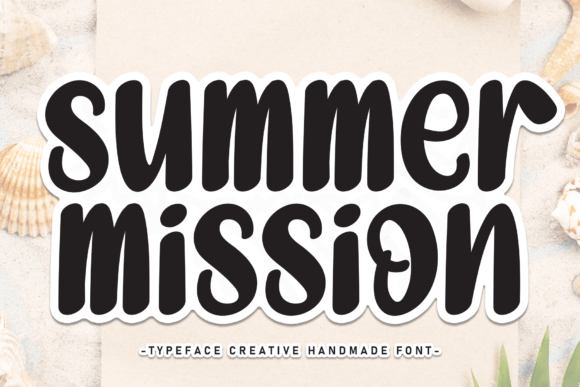
Introducing Summer Mission Font - A Script Embellishment to Awaken Your Design Dreams
Journey into the world of Summer Mission Font, a captivating handwritten display font that embodies sweetness and friendliness. This script font, crafted by the talented William Jhordy, is more than just a collection of letters; it's an artistic expression, a creative companion ready to transform your designs into captivating masterpieces.
Summer Mission Font: A Glimpse into Its Enchanting Charm
Envision a font that dances effortlessly across your screen, its characters flowing with a natural, handwritten grace. Summer Mission Font is precisely that - a symphony of curves and strokes that evoke a sense of warmth and playfulness. Its carefully crafted lines mimic the beauty of hand-lettering, adding an organic, personal touch to your digital creations.
The Allure of Summer Mission Font: Why It's the Chosen One
In a world saturated with digital fonts, Summer Mission Font stands out as a beacon of uniqueness. Its script style is reminiscent of days gone by, a nostalgic nod to the charm of handwritten letters. This font isn't just a tool; it's an extension of your creativity, a medium through which your ideas can flourish.
Discover the Versatility of Summer Mission Font: A Font for Every Occasion
Summer Mission Font is not confined to a single purpose; it's a versatile chameleon, adapting seamlessly to a myriad of design endeavors. Be it wedding invitations, greeting cards, posters, or social media graphics, this font adds a touch of whimsy and elegance wherever it goes. Its playful nature lends itself perfectly to children's books and playful designs, while its sophistication shines through in formal invitations and branding materials.
Summer Mission Font: A Spark of Inspiration for Your Creative Endeavors
With Summer Mission Font at your fingertips, you'll find inspiration blooming effortlessly. It's a font that sparks creativity, igniting a fire within your imagination. Its enchanting style will captivate your audience, drawing them into your designs and leaving them mesmerized by the beauty of your creations.